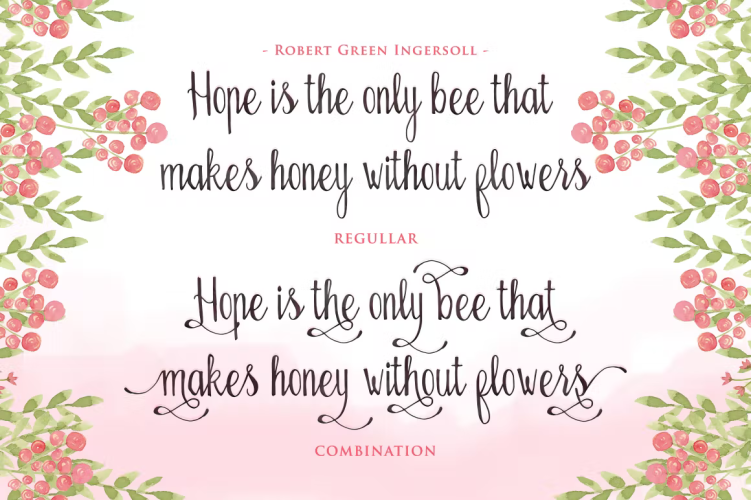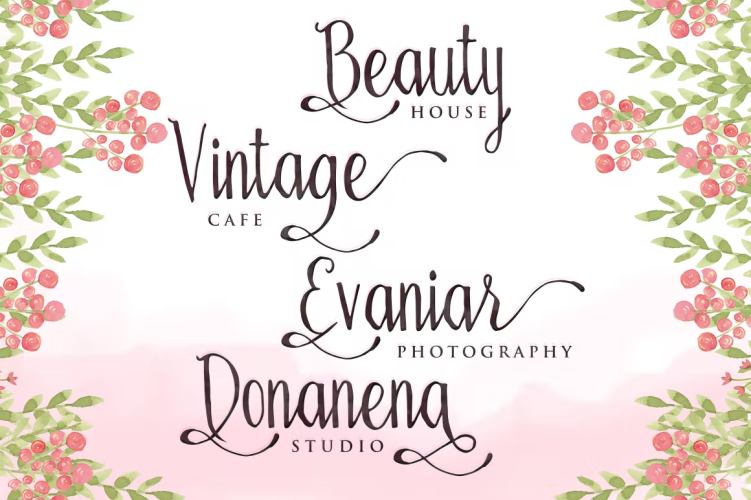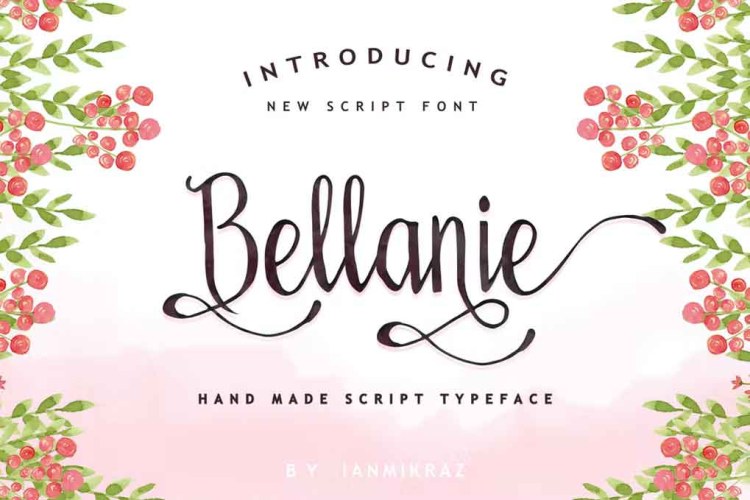
Bellanie Script Font
Introducing Bellanie Script
Bellanie Script is a handmade script typeface. Bellanie Script is suitable for wedding invitation, any greeting cards, retro / vintage design style, or any design that needs natural and personal touch. Mix and match the alternate characters to add an attractive message to your design.
384 glyphs and alternate character contain with opentype features. Stylistic alternates, Ornament, Swash and more.You can access all those alternate characters by using OpenType savvy programs such as Adobe Illustrator and Adobe InDesign.
Where Bellanie Script Font works best
A short phrase in Bellanie Script Font carries warmth that a typeset sans cannot fake; keep the rest of the card plain.
Chalkboard-style headings in Bellanie Script Font make a menu feel hand-made. Keep the dish descriptions in a simple face so prices stay readable.
One line of Bellanie Script Font over a photo is enough; the script carries the tone and the caption does the work.
What kind of work does Bellanie Script Font suit?
It sits in the Script And Handwritten group and reads as handwritten, retro, script, script and handwritten. That makes it a candidate wherever those qualities help: headings, packaging, social graphics and brand work. Set it at the size you plan to use before deciding.